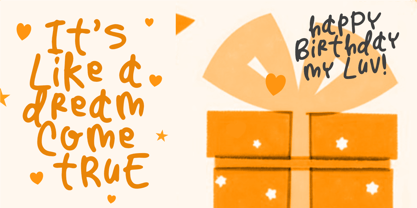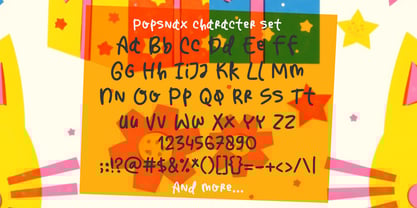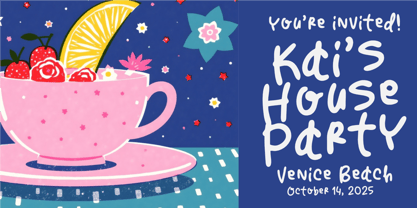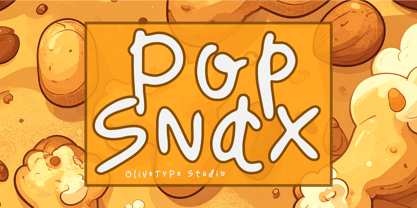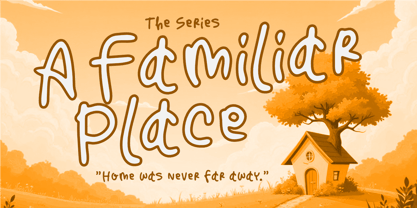
Popsnax
by Olivetype
The Popsnax Font Family was designed by Nurul Hidayani and published by Olivetype. Popsnax contains 1 styles.
Get ready to snack on some serious fun with Popsnax, a cute, playful cartoon font that bursts with personality! Perfect for product packaging, logo type, movie titles, and anything that needs a dash of joy, Popsnax brings a hand-drawn charm that makes your designs pop.
With its bubbly curves and quirky character, Popsnax is the go-to font for brands that want to be bold, cheerful, and unforgettable. Whether you’re designing for a kids’ cereal box, a toy brand logo, or an animated film title, this fun display font adds a delightful twist to every project.
Let your creativity munch away—Popsnax is fully loaded with uppercase, lowercase, numerals, punctuation, and symbols to keep your designs fresh and tasty.